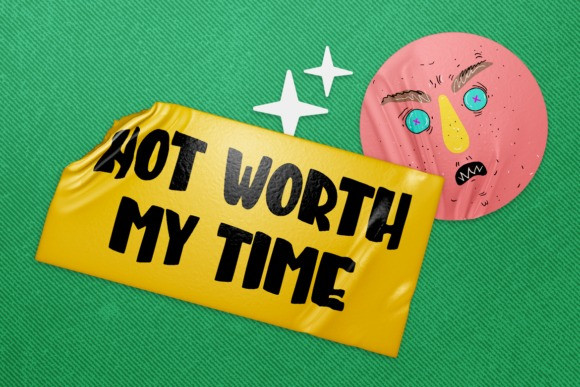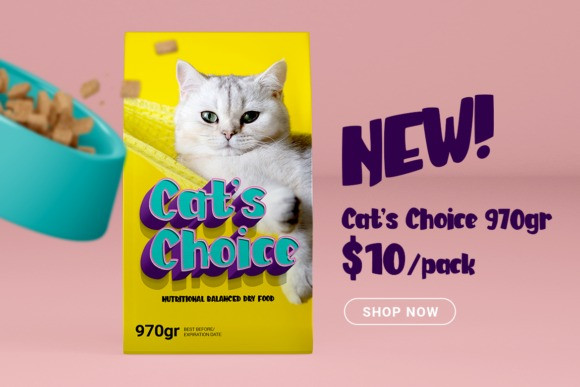
Ding Dong Font
Ding Dong Font is a cool, chunky lettered and fun display font. It works great for cartoon designs, playful creations or pretty much anything related to fun and joy.